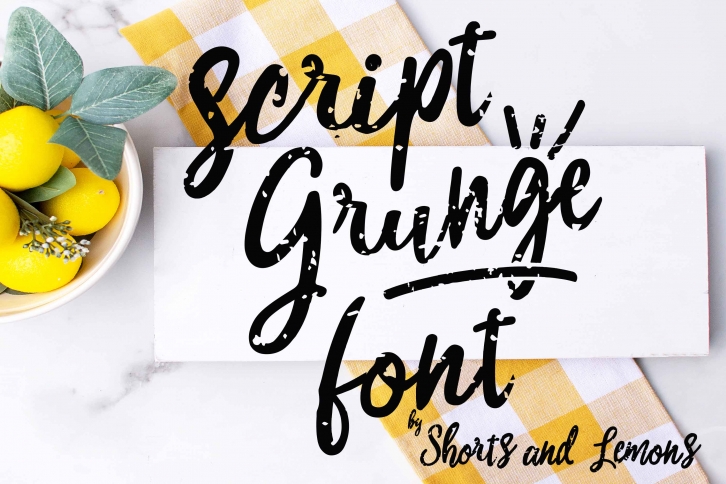
Script Grunge with SVG files and OTF is a great font that was designed by Shorts and Lemons. Imagine the amount of combinations you can create using this font! The archive is 12.36 MB and it was released on May 4, 2019. Script Grunge with SVG files and OTF looks beautiful on wedding invitations, greeting cards, logos, posters, labels, t-shirt designs, logos, business cards and is perfect for use in ink or watercolor works, fashion, magazines, packaging and food menus, children's books and more!